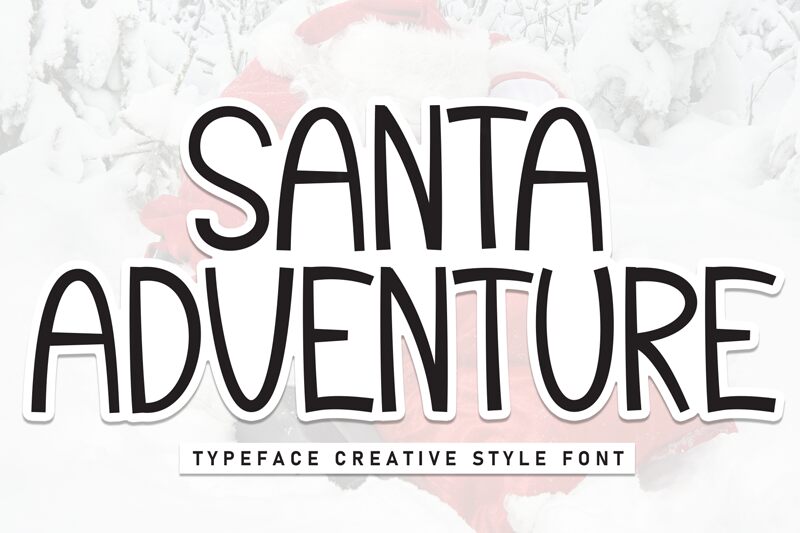
Santa Adventure font by Andi Moz is a free font perfect for creative projects. It is an informal and casual font with an inviting overall feeling for its friendly style. Santa Adventure was drawn in mildly elongated strokes and straight vertical lines for a unique contemporary and cheerful vibe. The font’s whimsical and relaxed aesthetics make it lively and easygoing.
It can be used as a display font or as a typeface where small simple paragraphs are required. Consider Santa Adventure for appearance in book covers, postcards, invitation cards, advertisements, restaurant menus, CD covers, packaging, websites, social media banners, posters, costumes, apparel labels, and much more.
This is a sweet and friendly handwritten display font. Cute and fun, this font is ideal for writing wedding invitations, cards, or any other design that might need a playful touch!